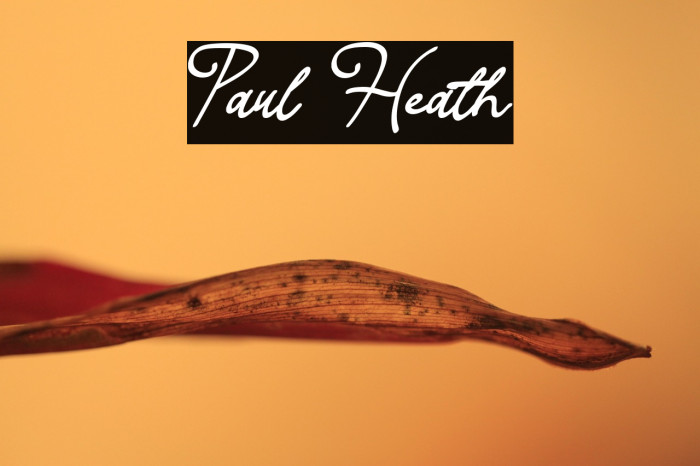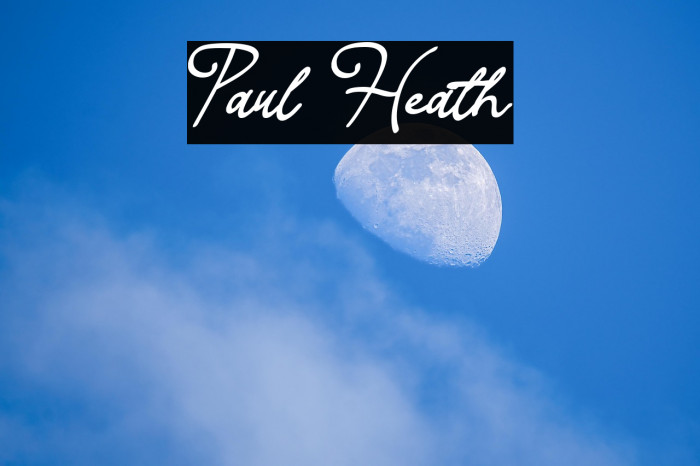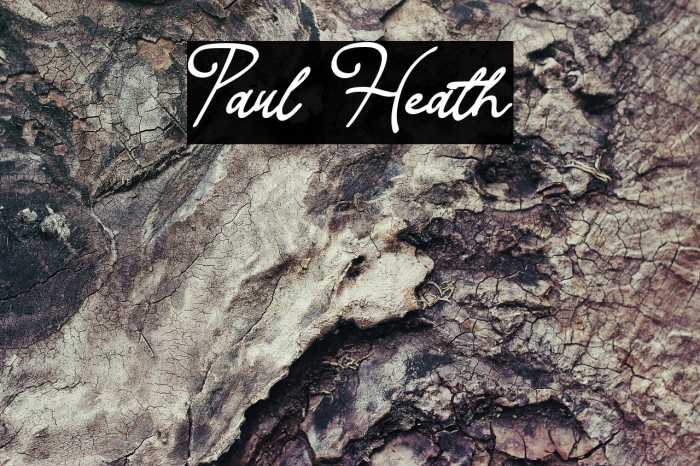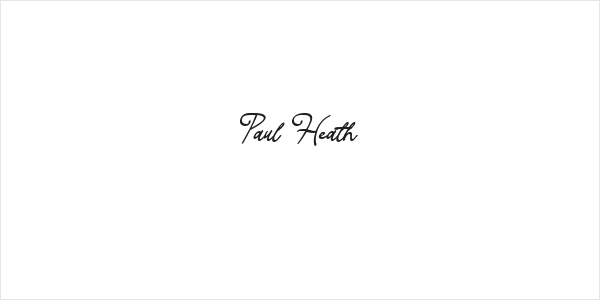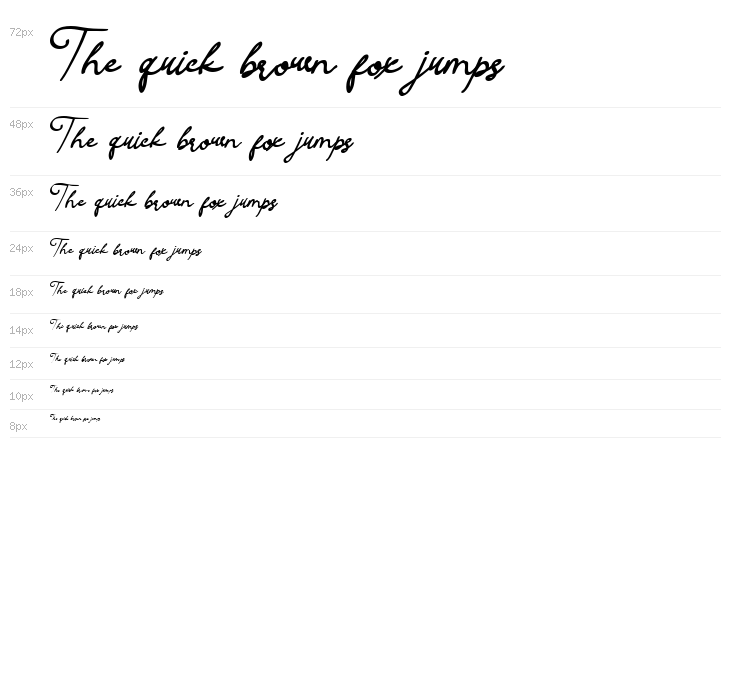
Paul Heath Font
Paul Heath Description
Elegant and flowing script font with a handwritten appearance, featuring smooth curves and connected letters.
| Use Case | Logos, Invitations, Greeting cards |
| Proposed Projects | Invitations, greeting cards, personal branding. |